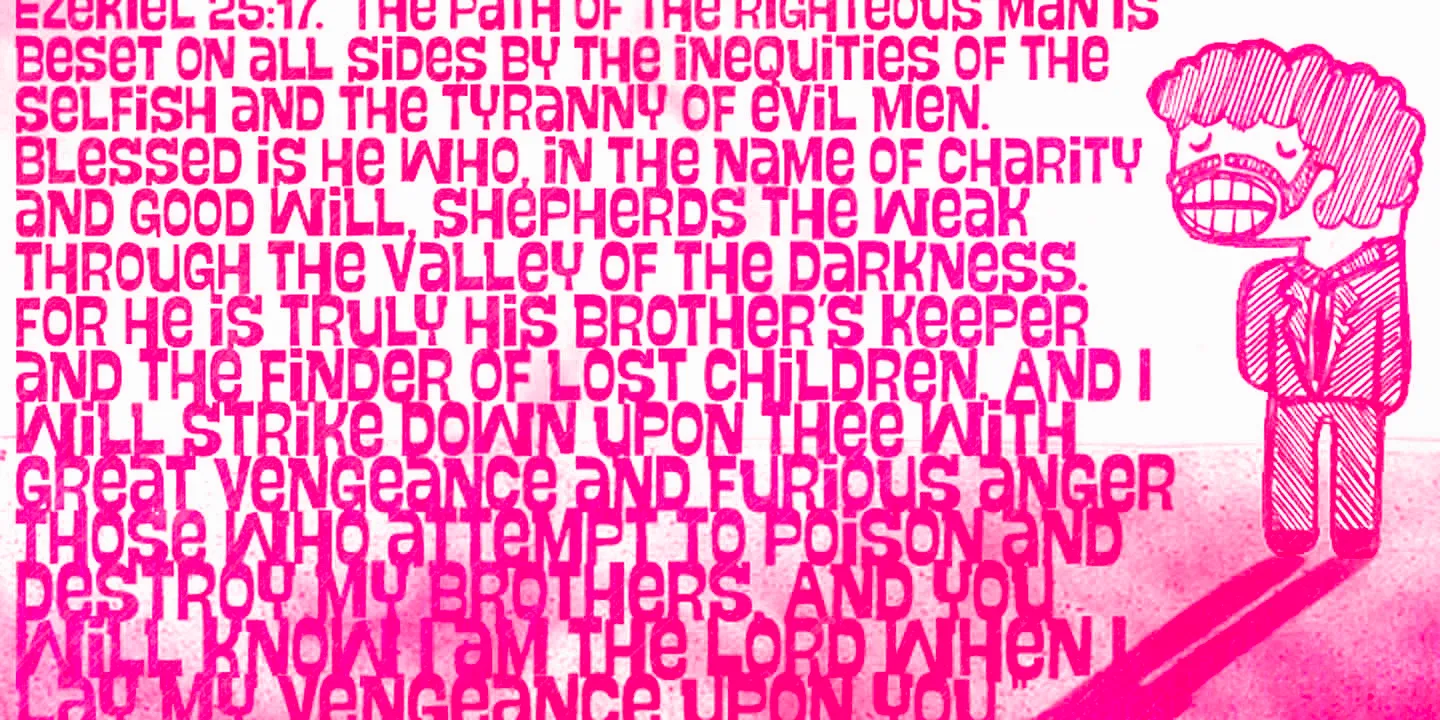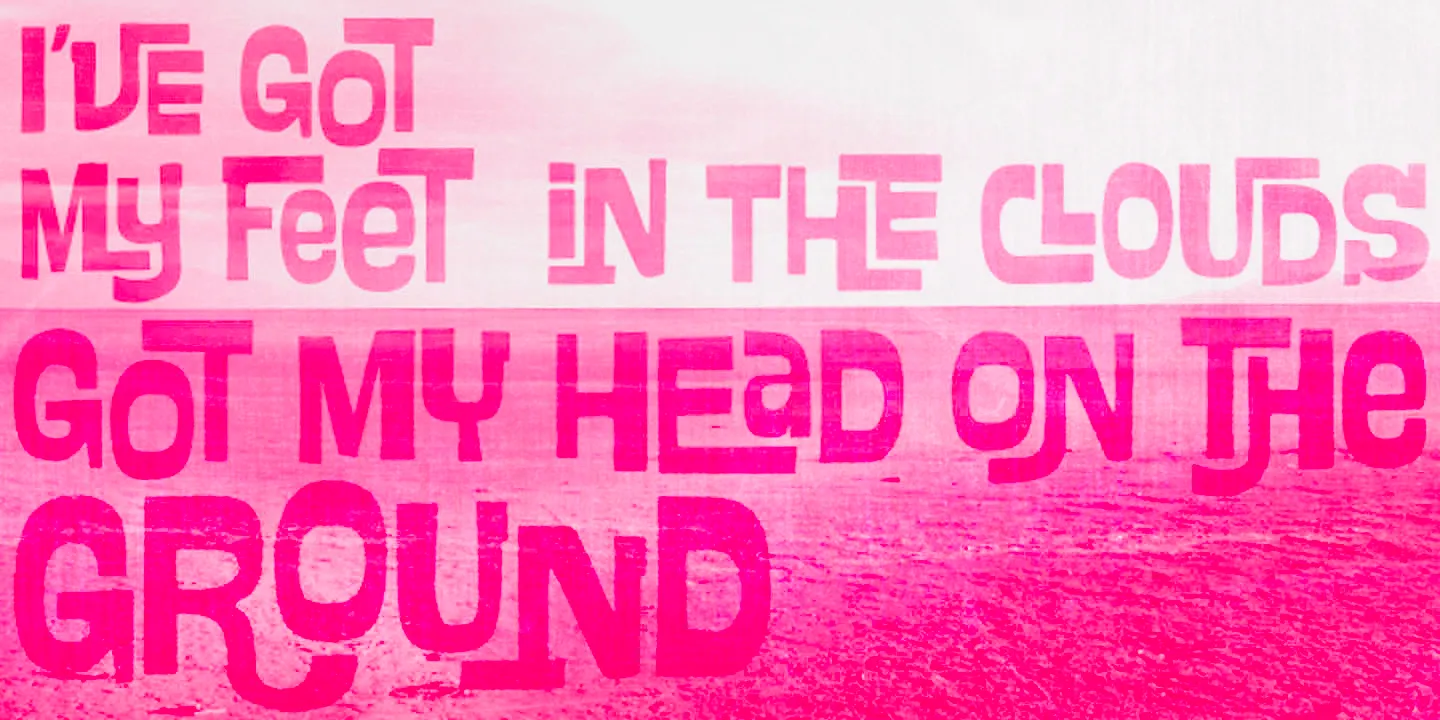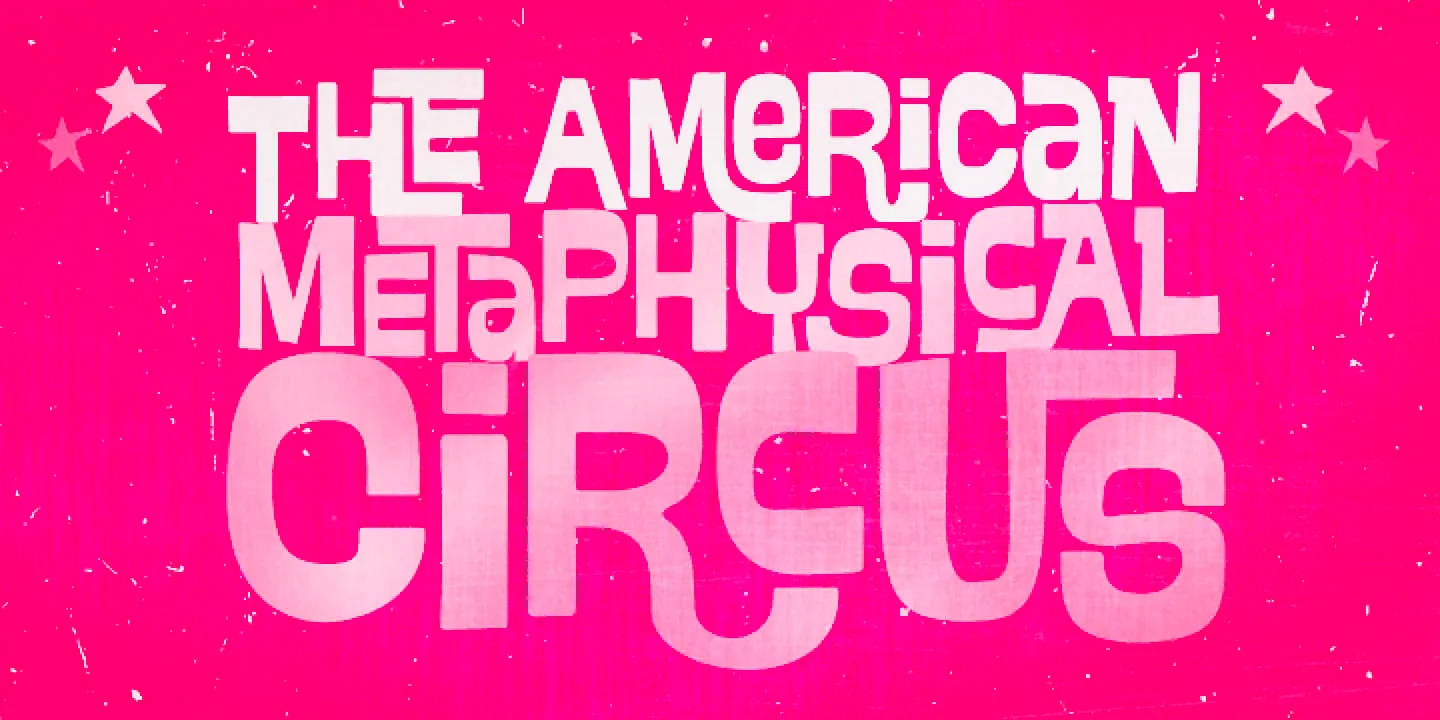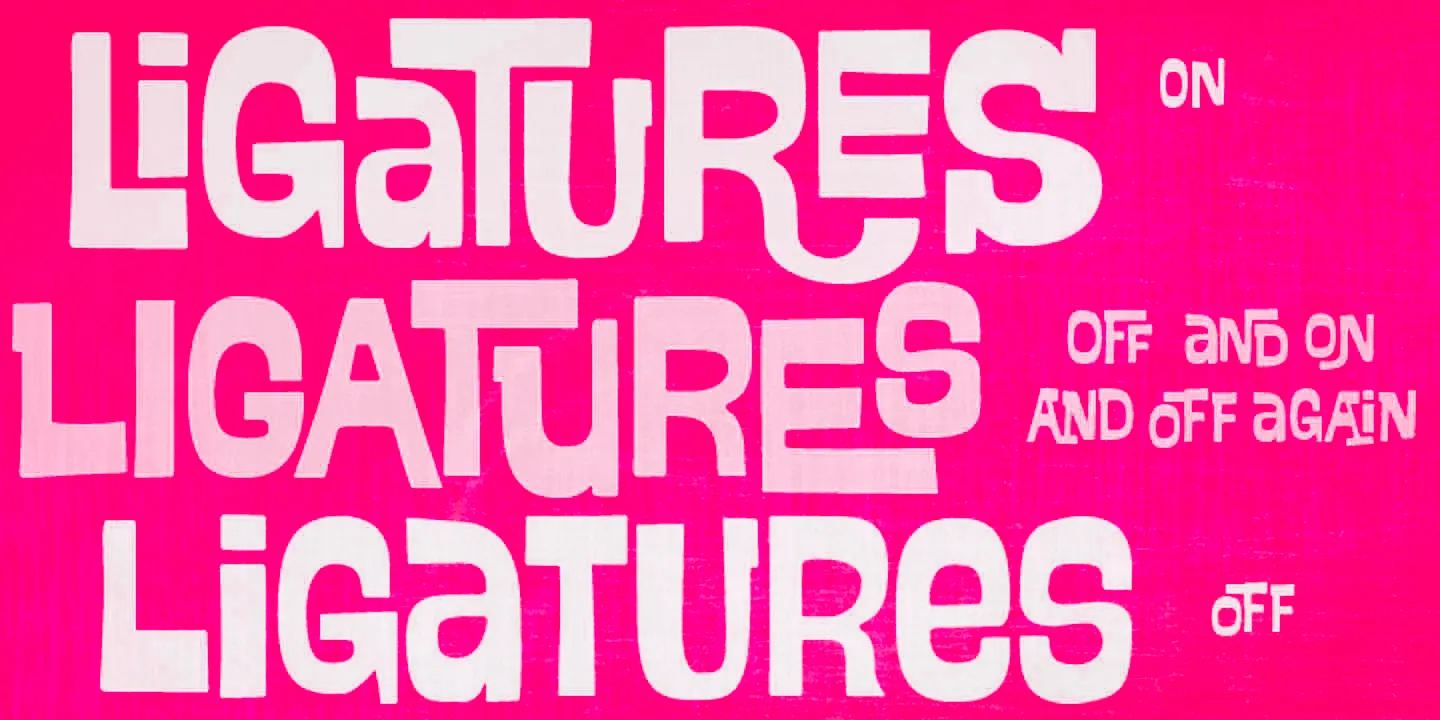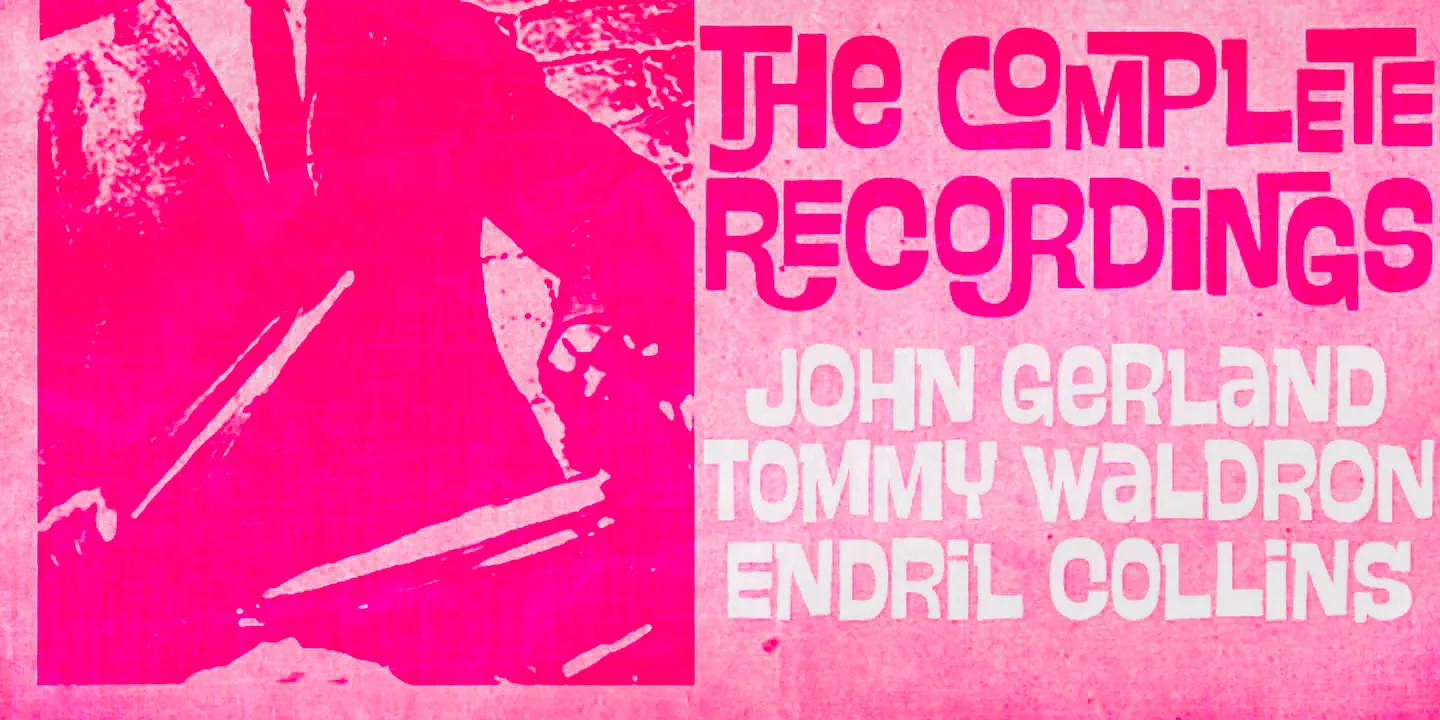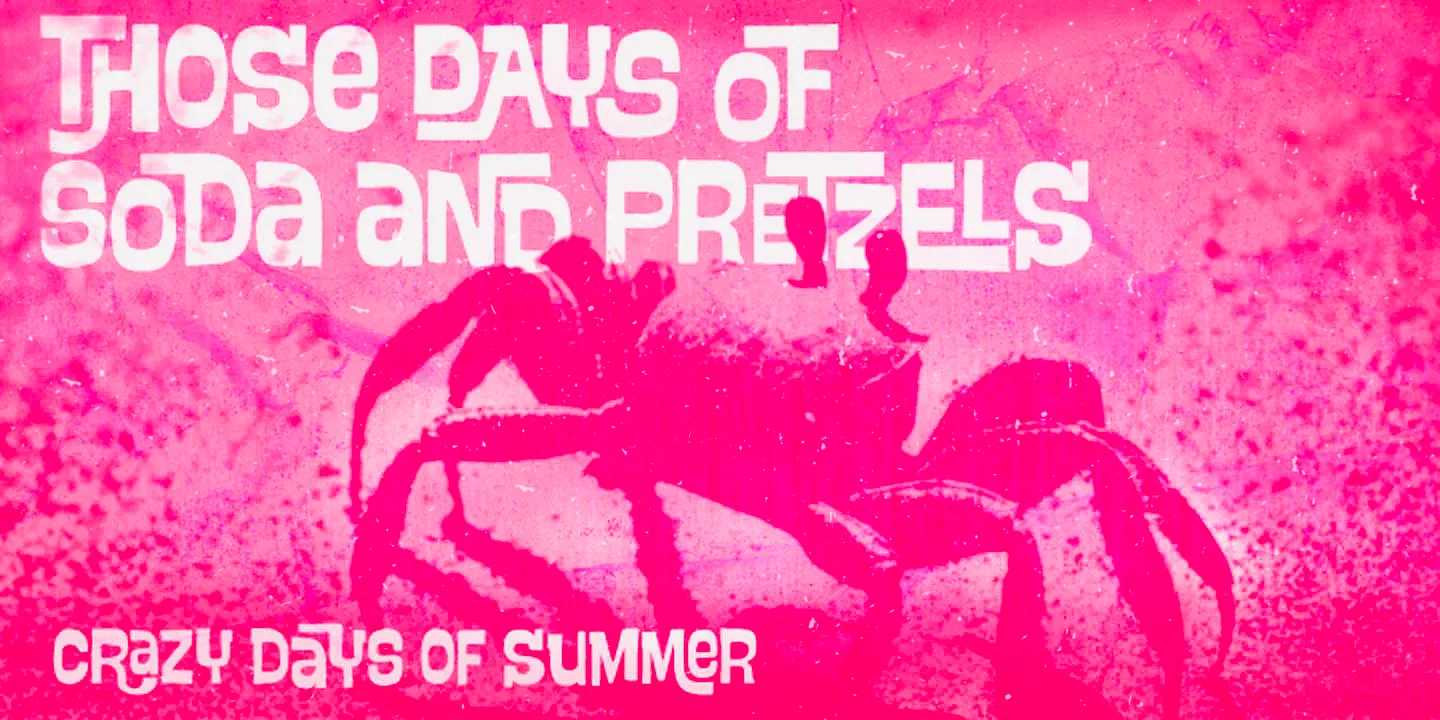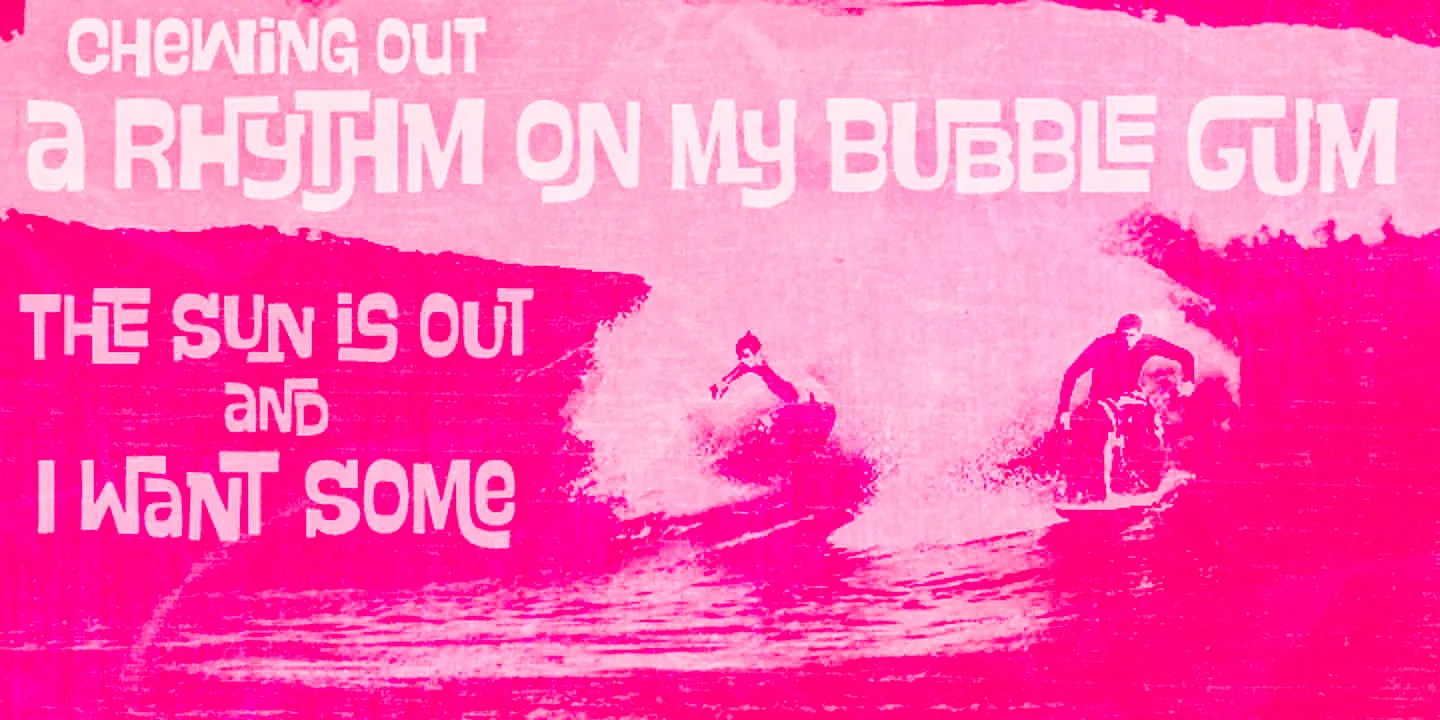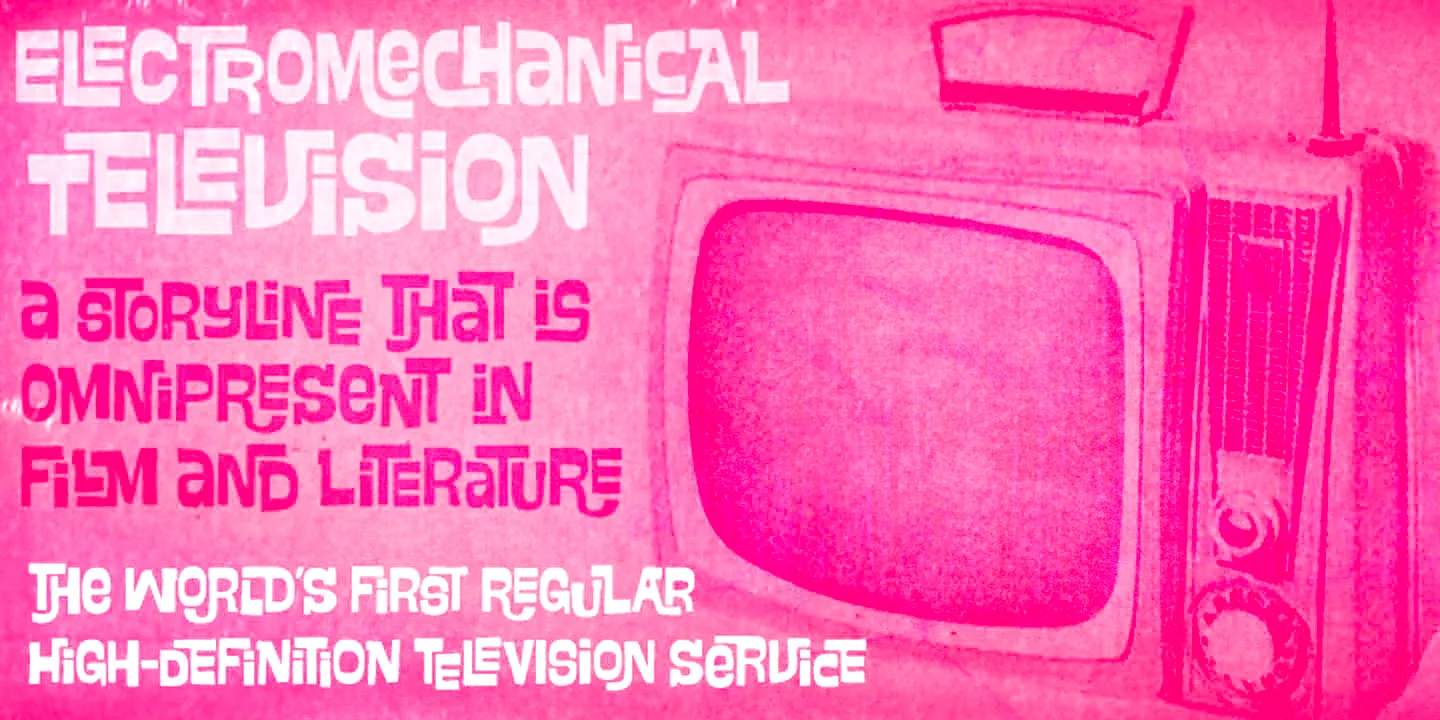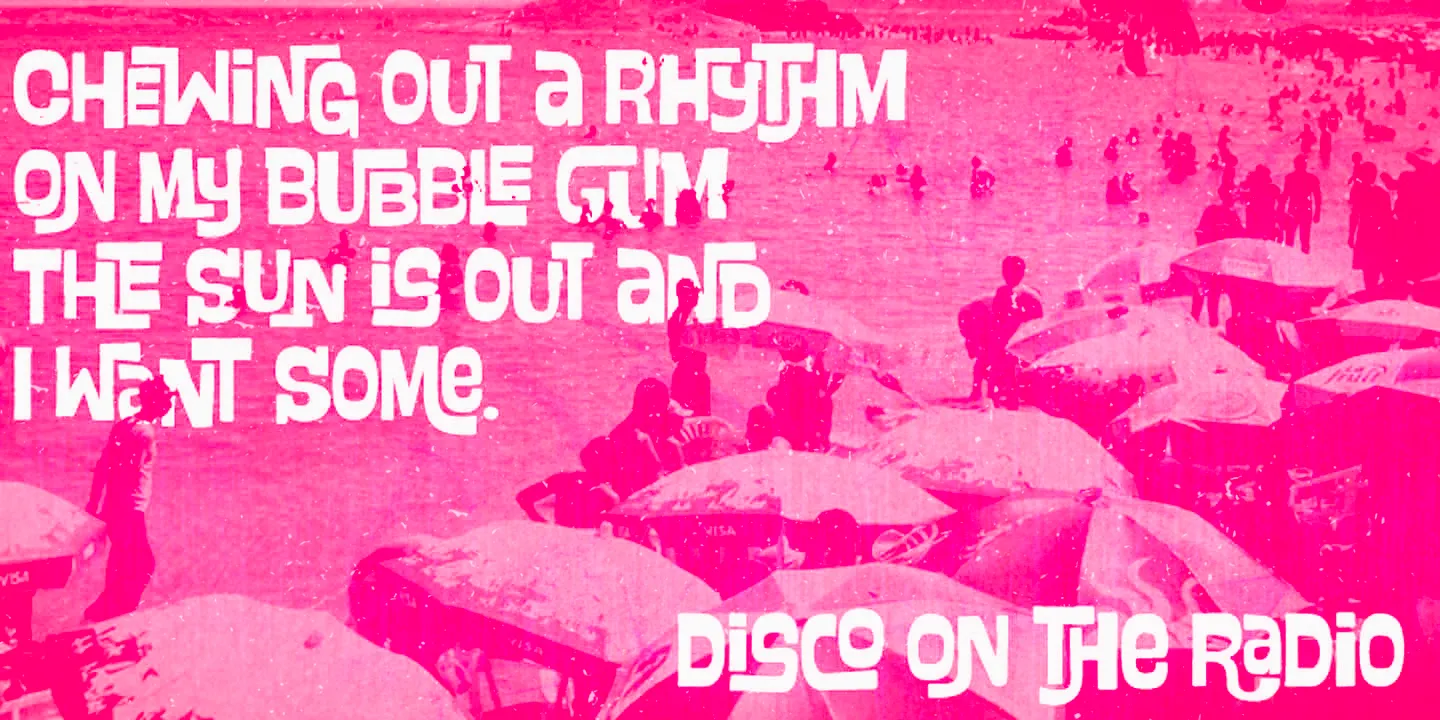
Swung Note Fonts
Swung Note
Swung Note is a groovily retro and dynamically original font packed with over 300 interlocking ligatures. Because the letters and words assume different shapes, the typography looks genuinely handcrafted. There are plenty of ways in which Swung Note can be used, and it will undoubtedly add style and energy to packaging, album covers, graphic novels, advertising campaigns, and social media branding. Swung Note is definitely a playful tool for creating unique, custom-looking work!
• Common Ligatures